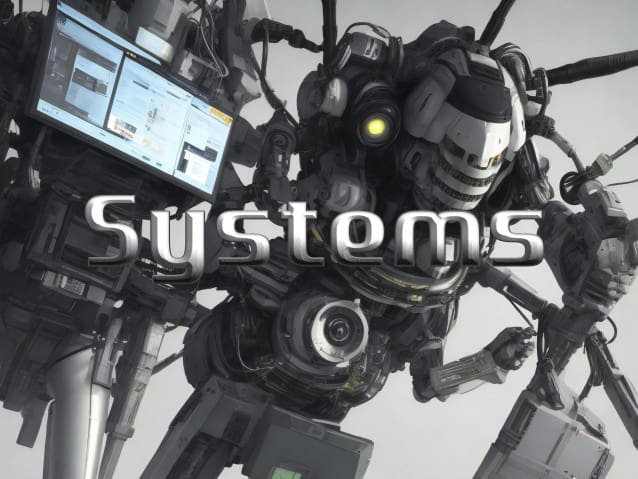
Volunmo Font
Volunmo Font is a bold and chic display font. No matter the topic, this font will be an incredible asset to your fonts’ library, as it has the potential to elevate any creation.